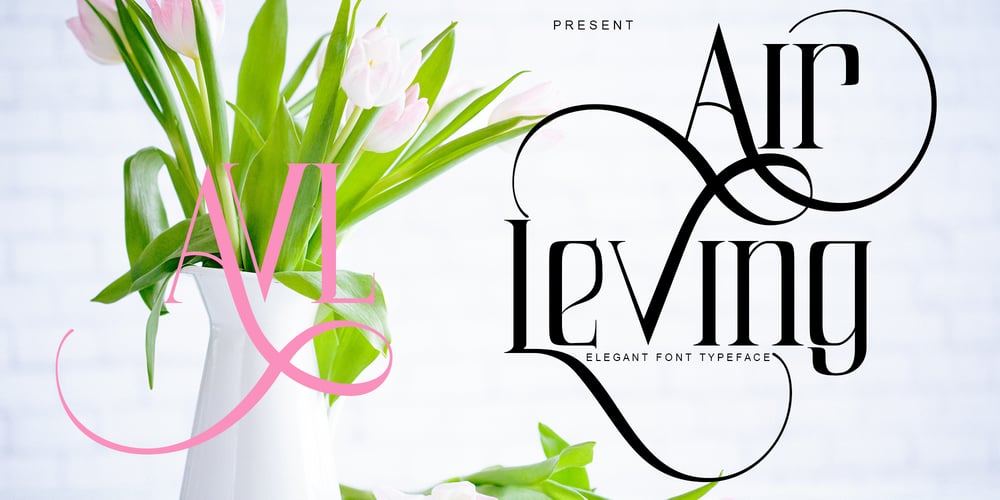
Air Leving
Air Leving font
Air Leving Font Family was designed by Ibram Syah and published by Jehansyah. Air Leving contains 1 styles and family package options. Air Leving this is an elegant fontThis is an elegant font, with alternatives that you can use as needed, this font is also very suitable to be used as a logo or product icon, it adds to your creative experience and will look much different from the others, suitable for all types of elegant and minimalist themed designs.Include :numericalternateLatinThank you very much